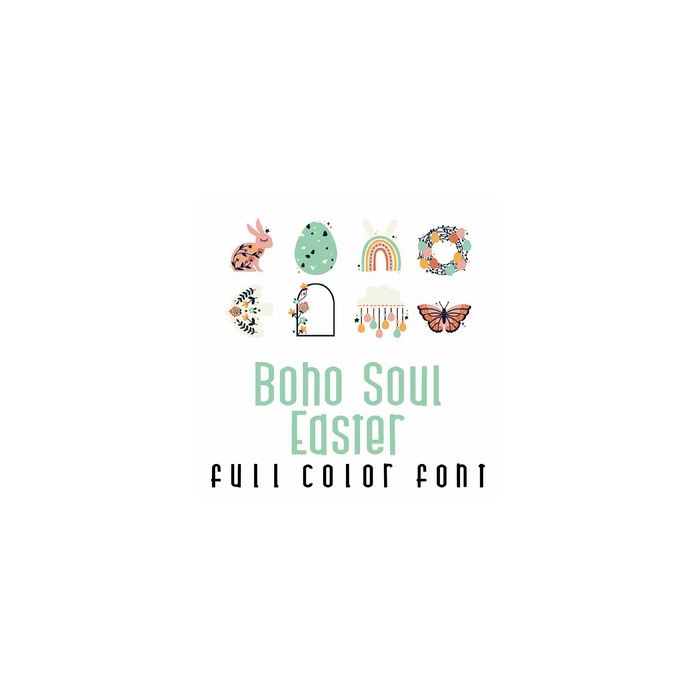
This adorable full-color doodlebat font features 26 boho styled Easter and Spring items perfect for nurserys, crafts, gifts, decor, planner stickers, scrapbook pages and more!